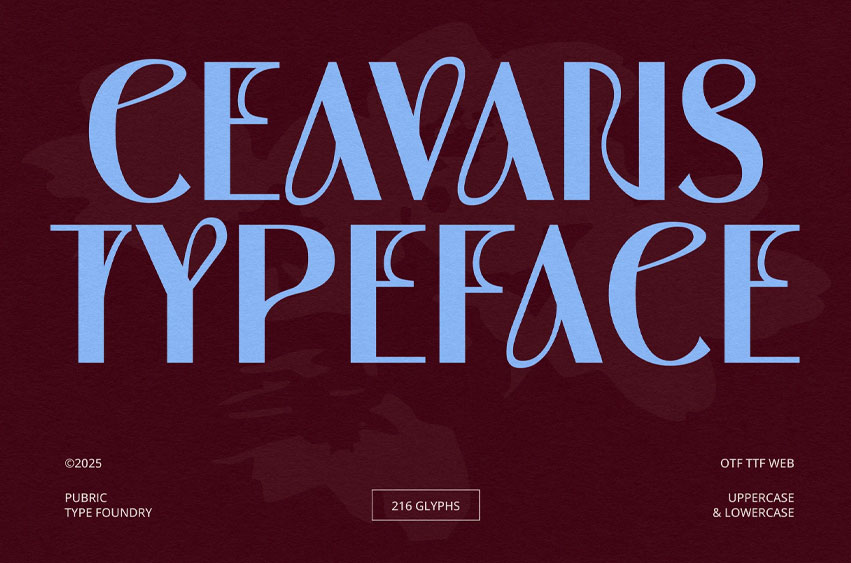
Ceavans Typeface Font
Ceavans Typeface Font is a contemporary Art Nouveau typeface that blends elegant curves with bold geometric elements. Evoking early 20th-century decorative charm with a modern twist, it’s great for posters, packaging, branding, and elegant, feminine design projects.
Ideal for branding, posters, headlines, packaging, album art, game visuals, and promotional designs. It adds personality to any creative project and helps your message stand out effortlessly.